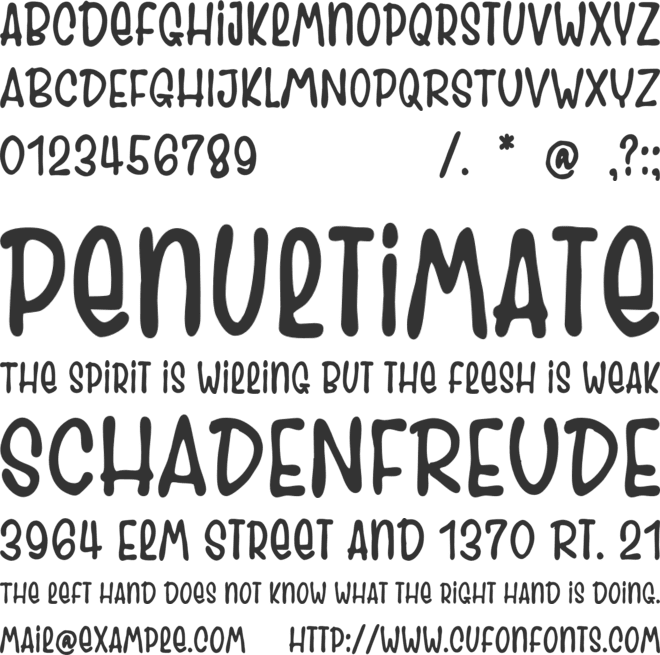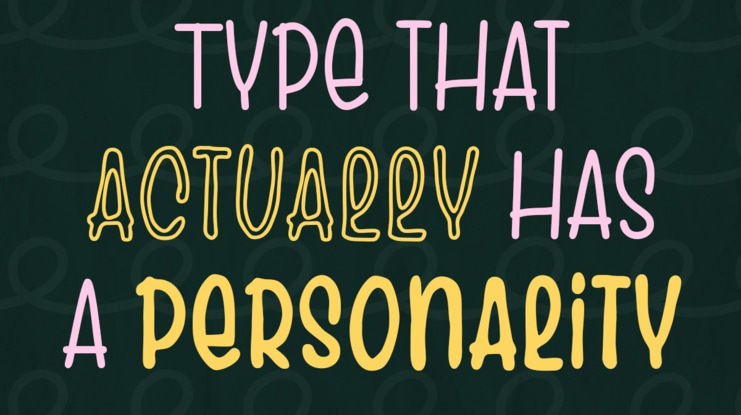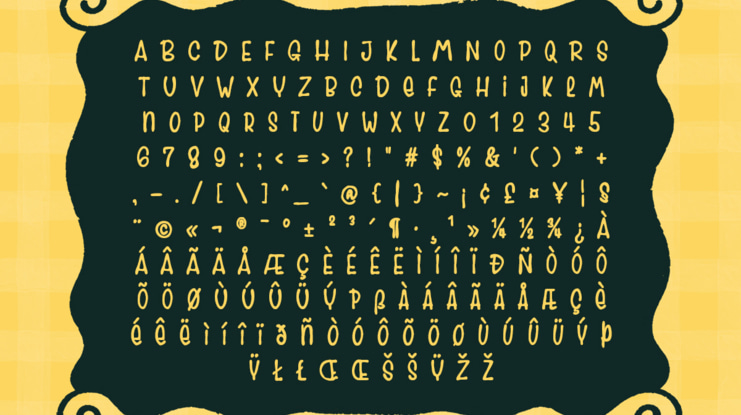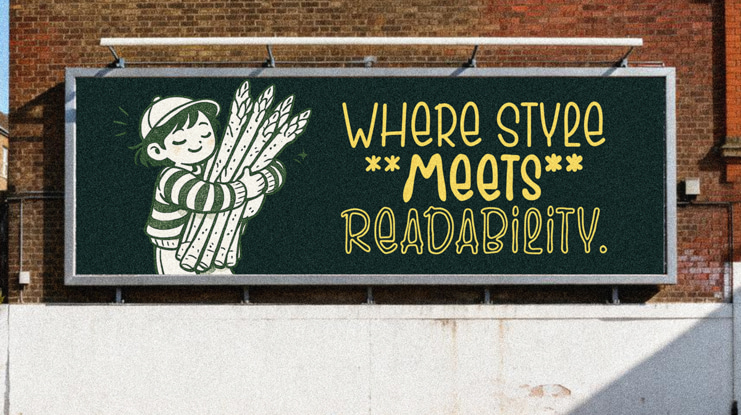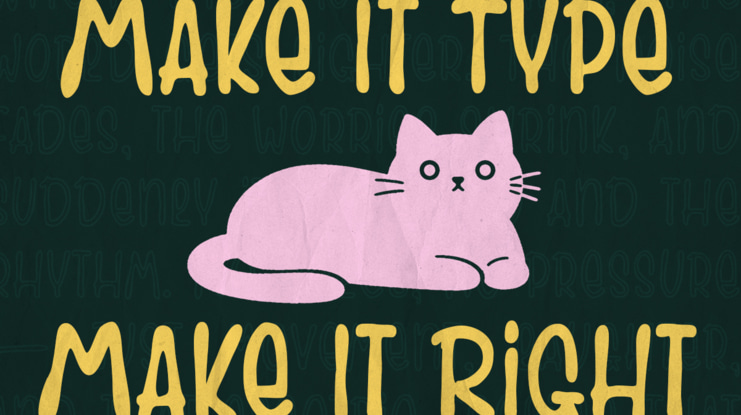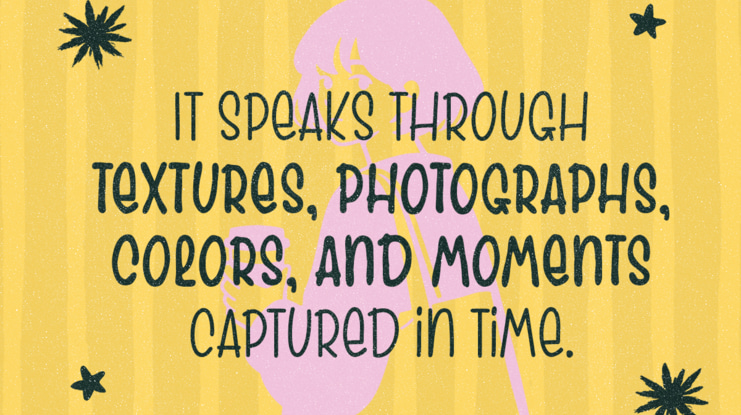
Gramel – Handwritten Display Font
Gramel is a stylish handwritten display font designed to bring natural personality and expressive charm into your creative typography. Inspired by casual handwritten lettering, Gramel features smooth strokes, organic curves, and dynamic character shapes that create an authentic handcrafted feel. This font is perfect for designers who want to add a personal, artistic, and eye-catching touch to their visual projects.